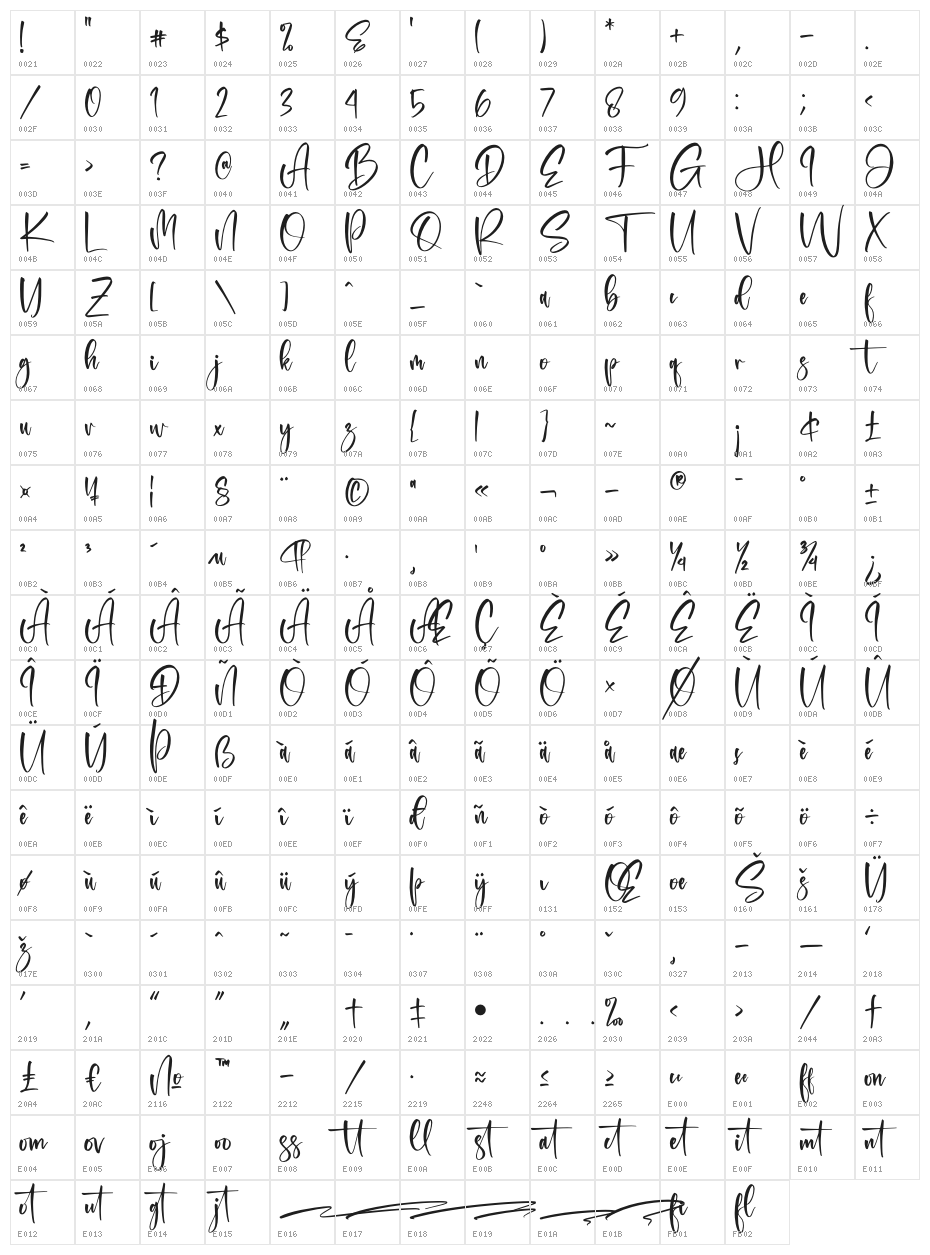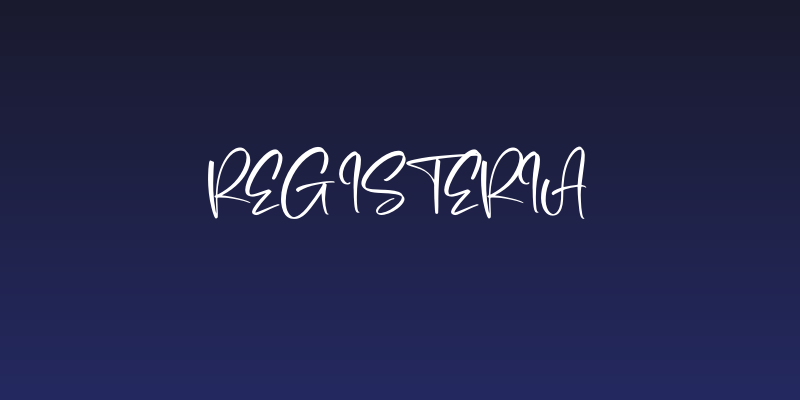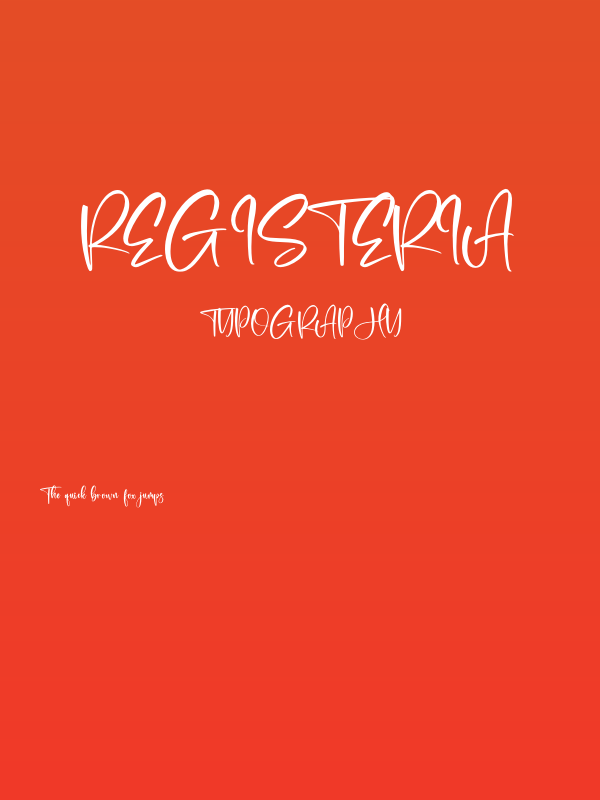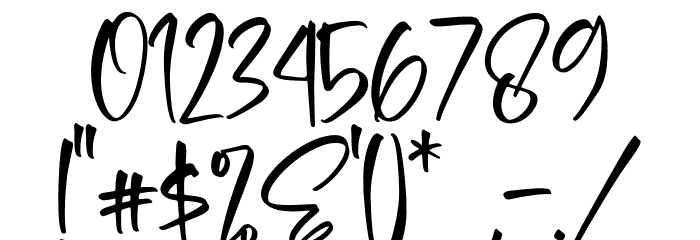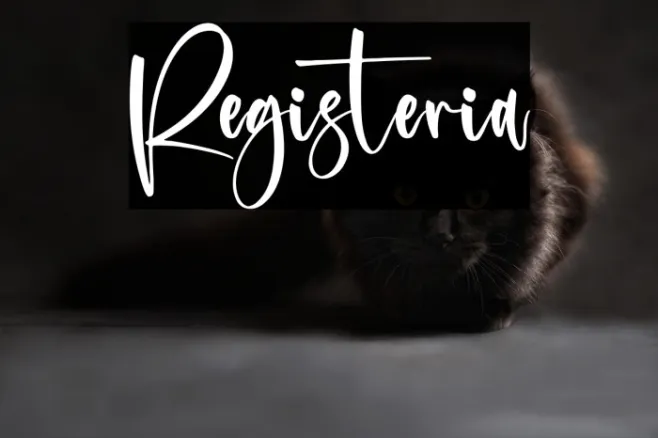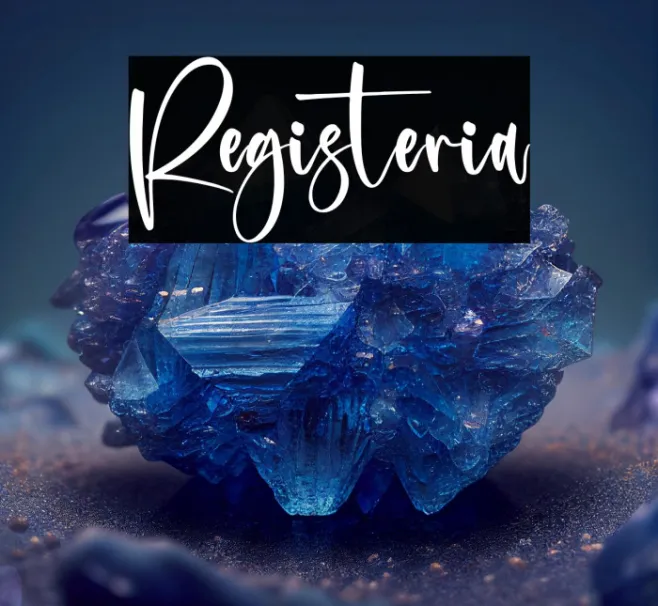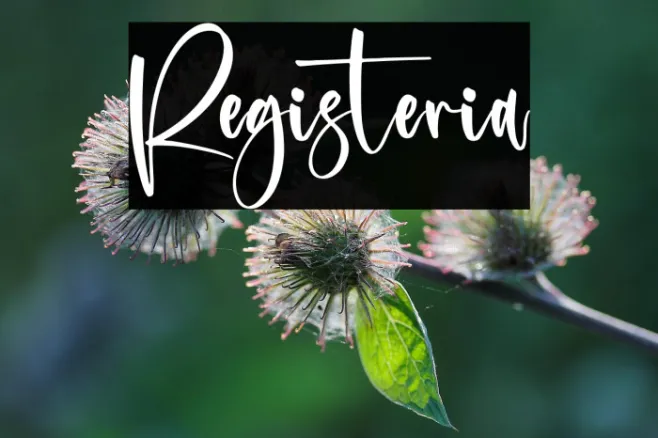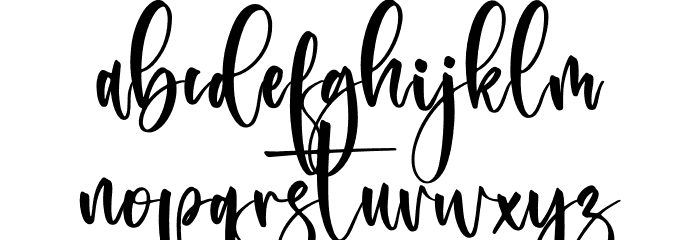
Registeria Font
Registeria Description
This font features a dynamic and expressive handwritten style, characterized by its fluid and flowing letterforms. The uppercase letters exhibit a playful yet elegant flair, with each character maintaining a consistent slant and smooth curves. The lowercase letters continue this theme, offering a harmonious blend of loops and swashes that enhance its organic feel. Numbers and special characters are equally stylized, maintaining the font's cohesive aesthetic. This font's overall appearance is both artistic and approachable, making it suitable for a variety of creative applications.